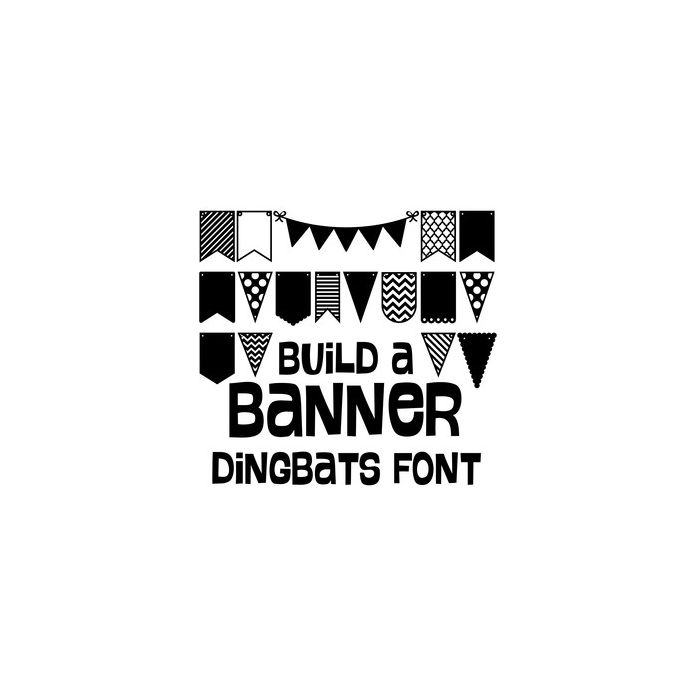
This cute dingbat font includes 26 banner icons that you can type + cut. Make adorable banner projects quickly and easily with this fun font. For ideas and inspiration visit www.loriwhitlock.com and www.facebook.com/lori.whitlock.studio. For Lori's video tutorials visit www.youtube.com/loriwhitlock. For a full tutorials list visit www.loriwhitlock.com/blog/tutorials.